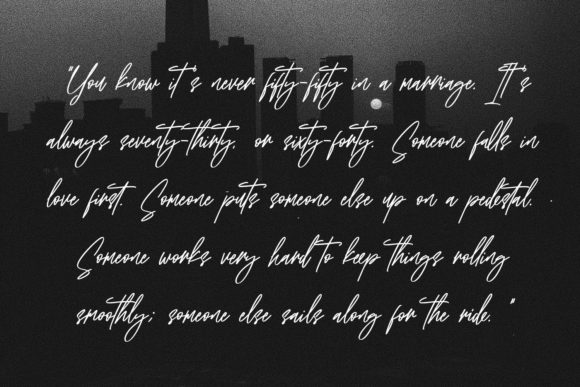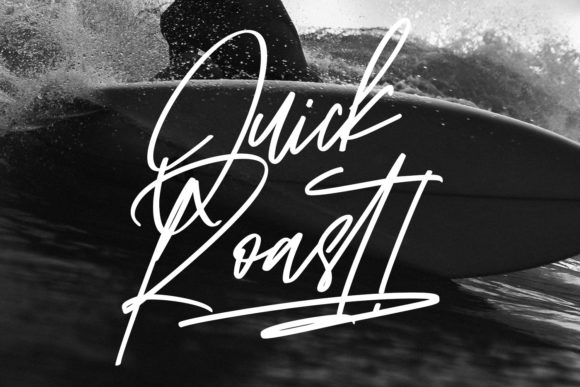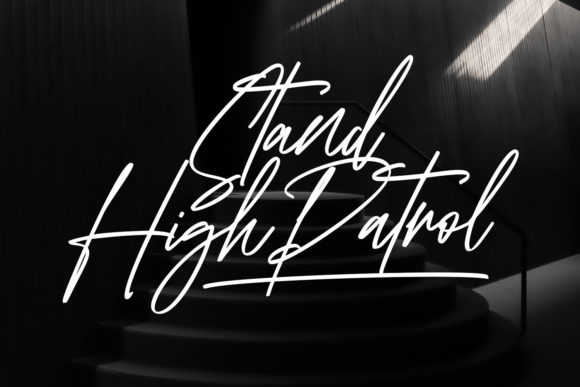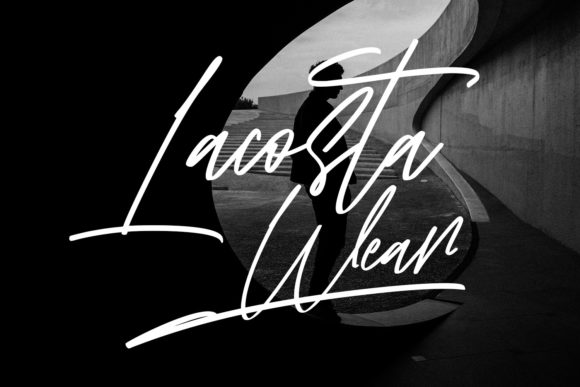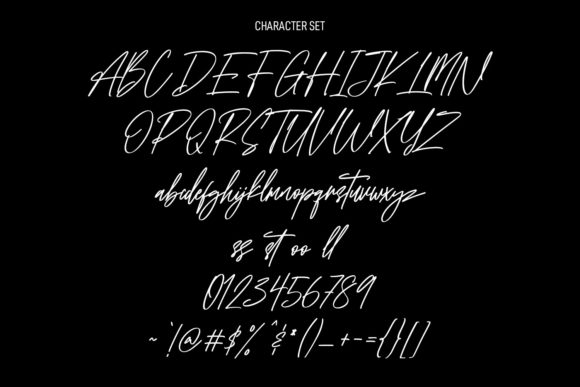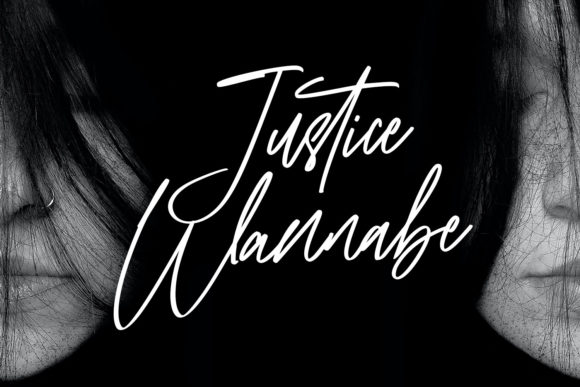
Introduction to Nubriska Font
Nubriska is an expressive signature script font.
It features bold contrast strokes, fun characters, ligatures and swashes It is perfect for any branding project such as logos, t-shirt printing, creative products, and more.